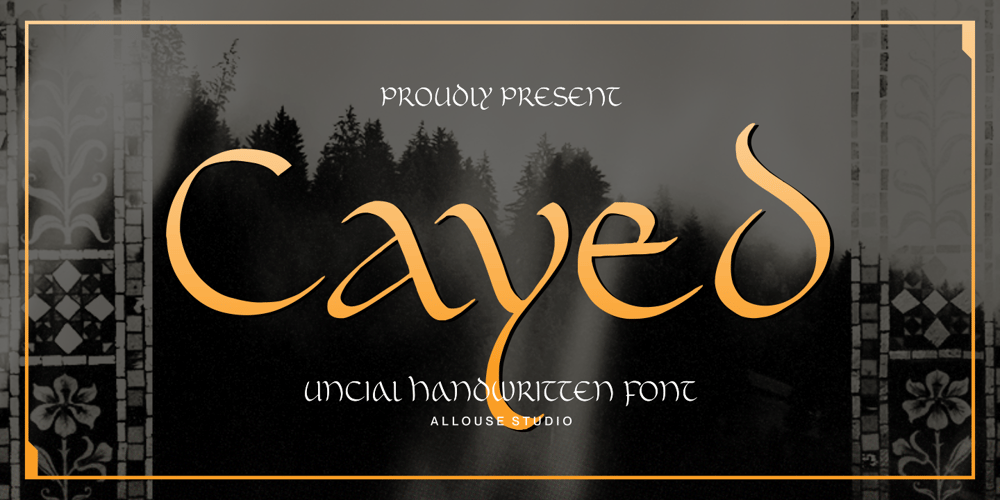
Cayed Font Family was designed by Fachrizal Yusuf and published by Allouse Studio. Cayed contains 1 styles and family package options. Proudly Presenting, Cayed a Uncial Handwritten Font that will bring an classic feel for your need.Cayed is perfect for any titles, logo, product packaging, branding project, megazine, social media, wedding, or just used to express words above the background.Cayed also come with Multi-Lingual Support.Enjoy the font, feel free to comment or feedback, send me PM or email. Thank You!